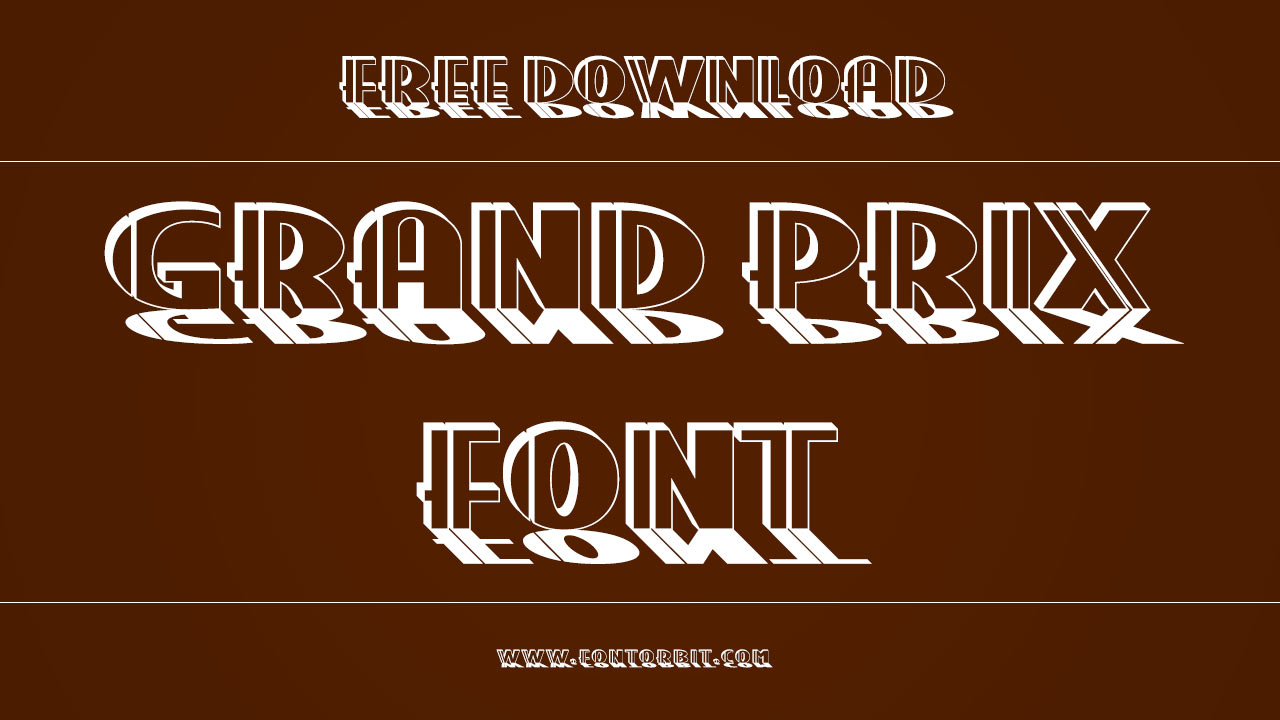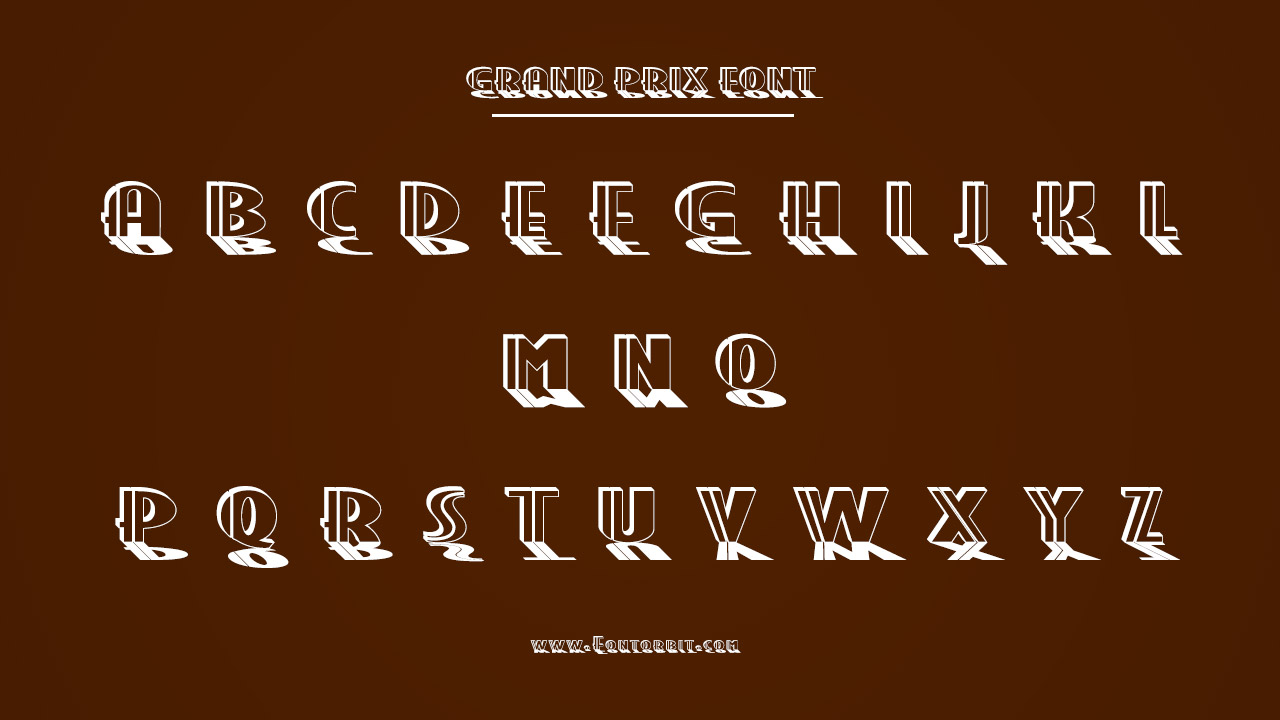
Grand Prix Font is a bold and dynamic typeface designed by Nick’s Fonts. Drawing inspiration from the thrilling world of racing, this decorative font embodies speed, precision, and performance. Its strong lines and energetic design make it an excellent choice for projects that demand attention and convey motion. Whether you’re designing branding materials, posters, or digital graphics, Grand Prix Font delivers a distinctive look that stands out.
This font is perfect for anyone looking to add a sense of excitement and sophistication to their work. Its unique style is ideal for racing themes, branding, and high-energy designs, capturing the spirit of competition and movement.
Grand Prix Font belongs to the decorative font family and is characterized by its bold, energetic style that reflects its racing heritage. While it is available in a single, bold style, its impactful design ensures versatility for a wide range of creative projects. The font includes a complete set of characters and glyphs, making it suitable for both print and digital design needs.
Grand Prix Font is versatile and well-suited for various applications, including:
- Posters and Headlines: Ideal for attention-grabbing designs that convey speed and energy.
- Branding Materials: Excellent for car-related brands, competitions, or logos.
- Printed Materials: Use in promotional content such as flyers or banners.
- Digital Media: Perfect for websites, social media graphics, or video overlays.
- CSS and Web Design: Works seamlessly in web projects for bold typography.
Grand Prix Font is a bold and decorative typeface that brings speed, power, and motion to your designs. Whether you’re creating branding materials, posters, or digital graphics, this font’s unique style will help your project stand out. Its versatility and compatibility make it a reliable choice for designers in various fields.
Grand Prix Font is ideal for racing-themed or high-energy projects. Use it for headlines, branding, and any design where a bold statement is required.
2.What Are The Design Principles Behind Grand Prix Font?
This font is inspired by the aesthetics of speed, performance, and control. It emphasizes bold lines and a dynamic structure to create a sense of movement.
Adjust letter spacing, color, and size to fit your design. Combine it with sleek, sans-serif fonts for a balanced and modern look.